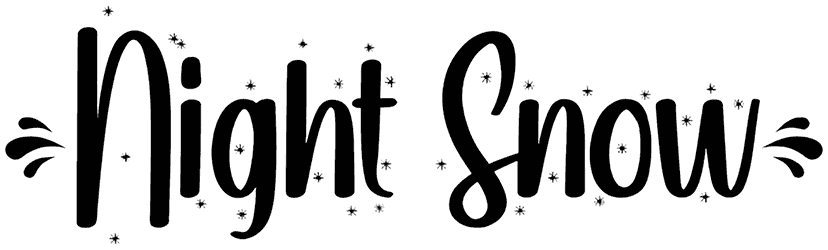
Night Snow Font
Night Snow can complement all the necessary decorations to make Christmas a special time. This holiday font is designed as if the designer sprinkled a brush full of snow and created a pleasant winter feeling with snowflakes.
So if you need a Christmas font that matches other decorative elements on posters, greeting cards, gift wrapping, and packaging, this script font can provide you with everything except numbers.